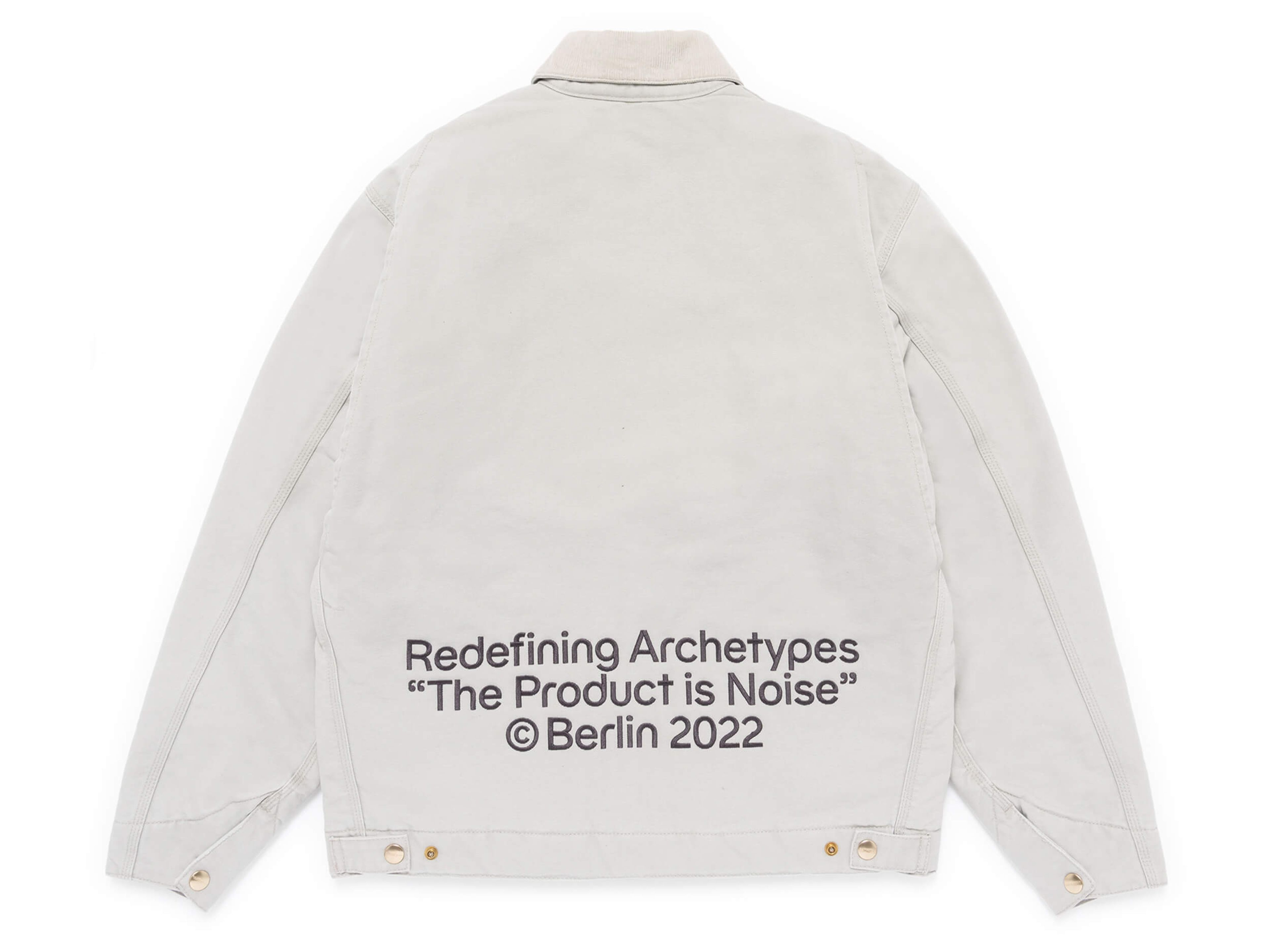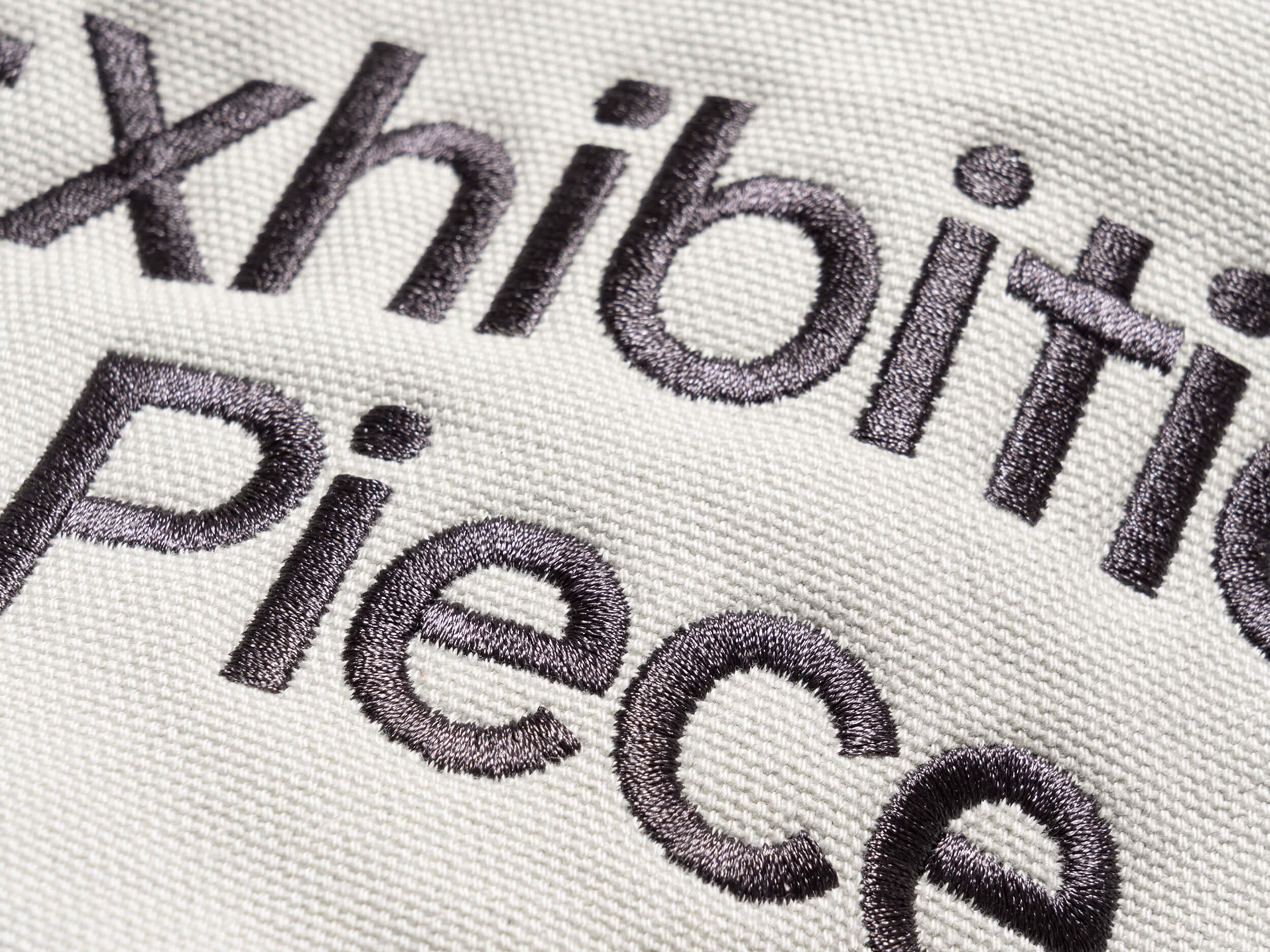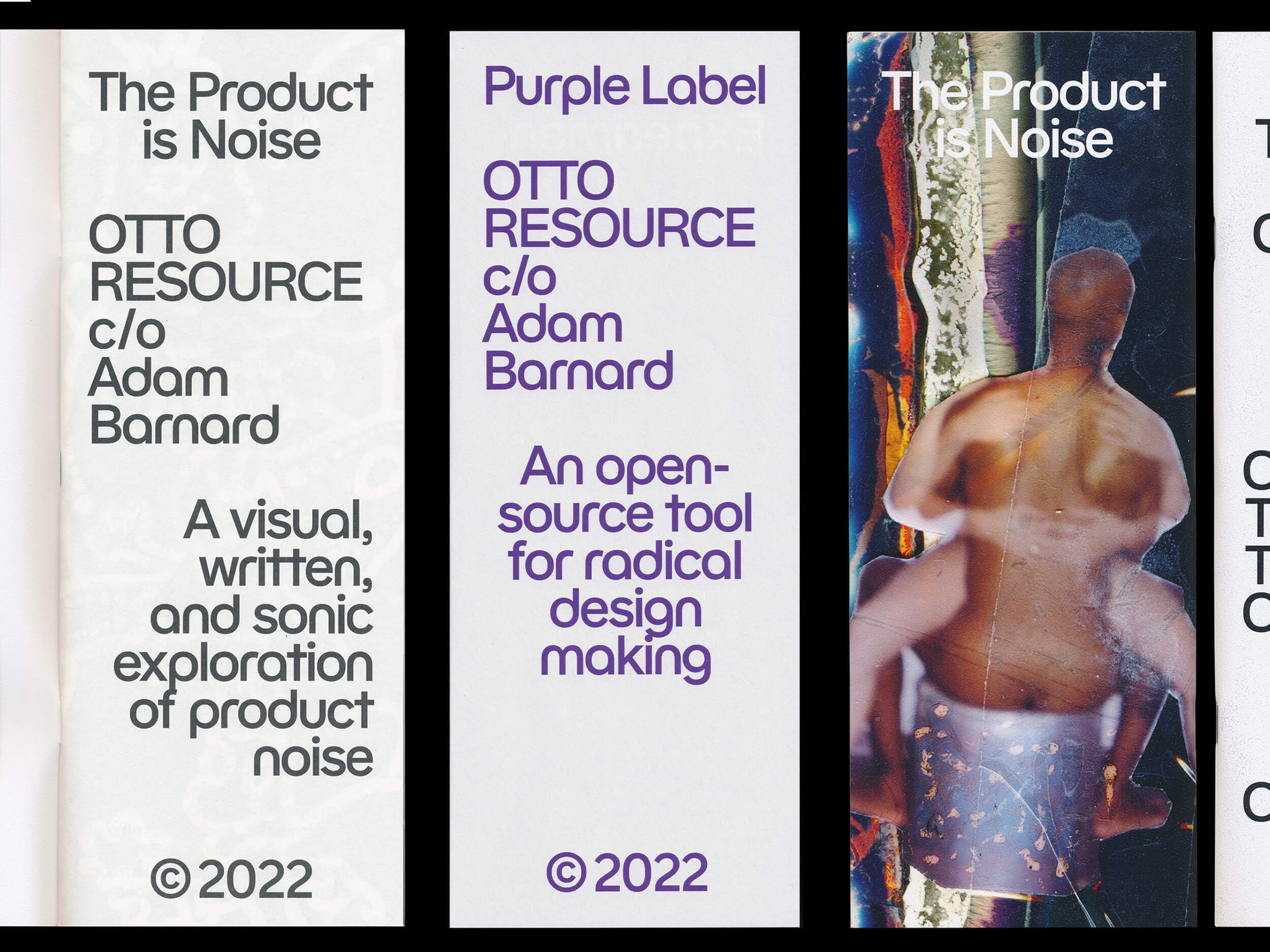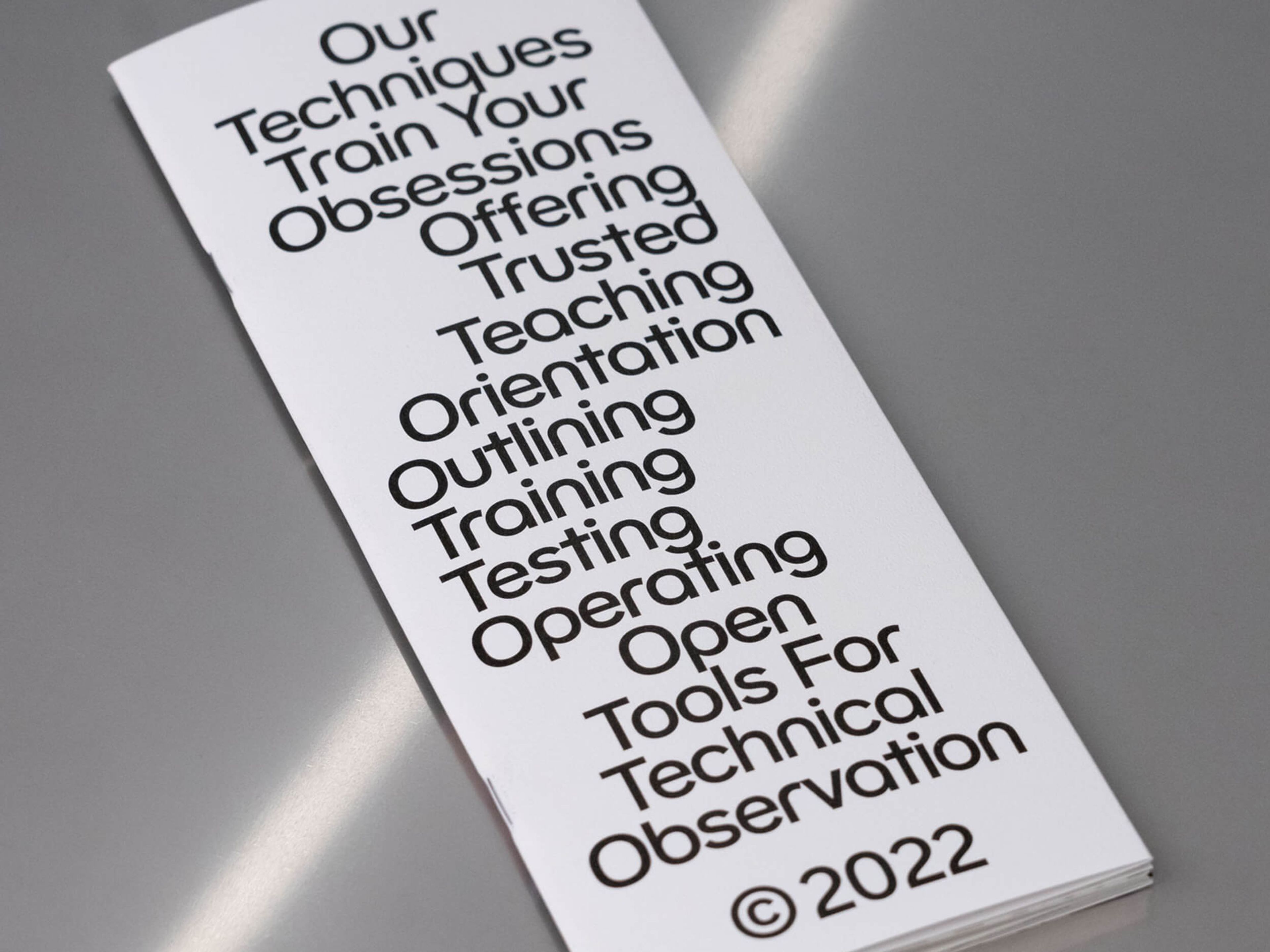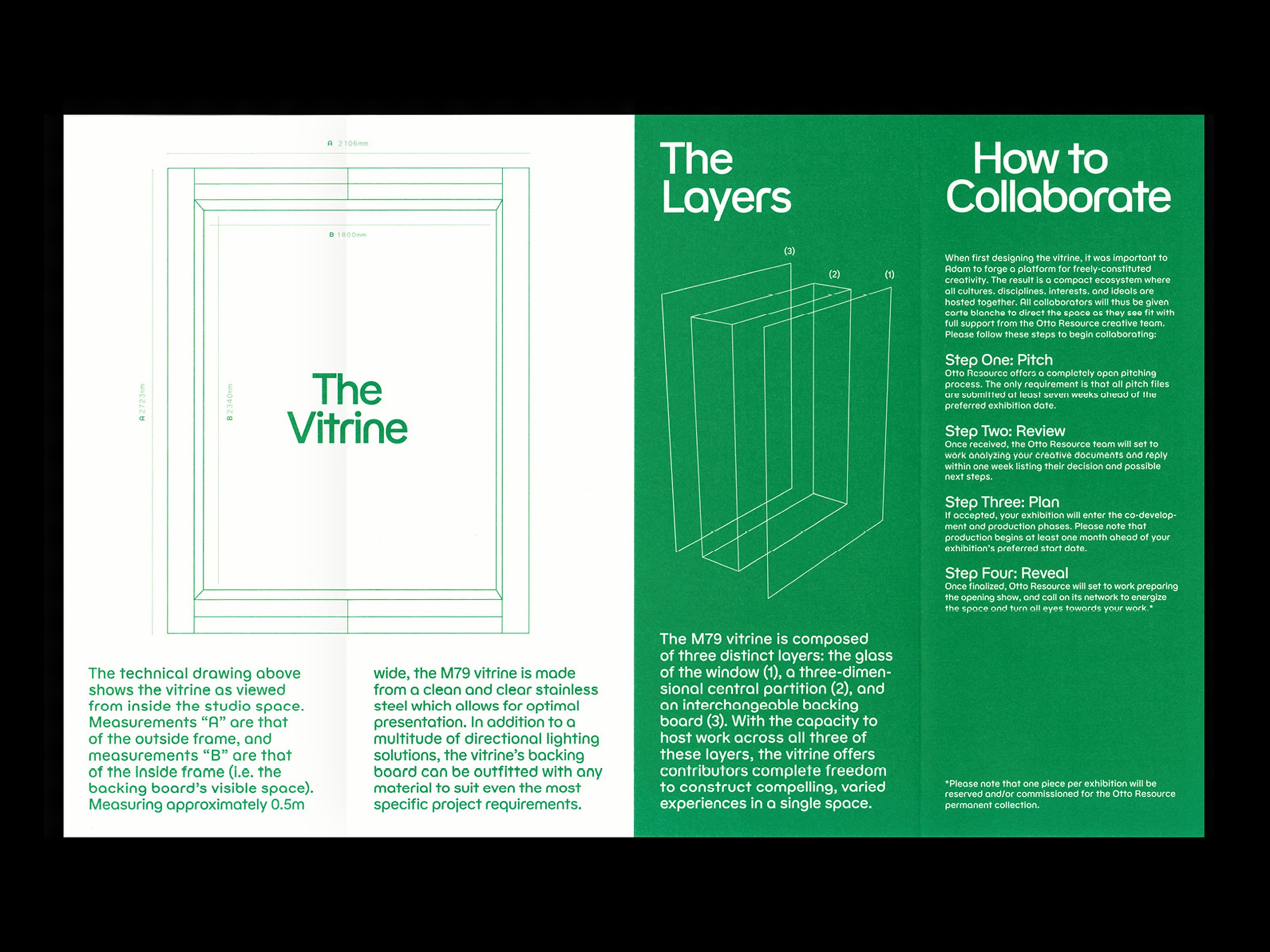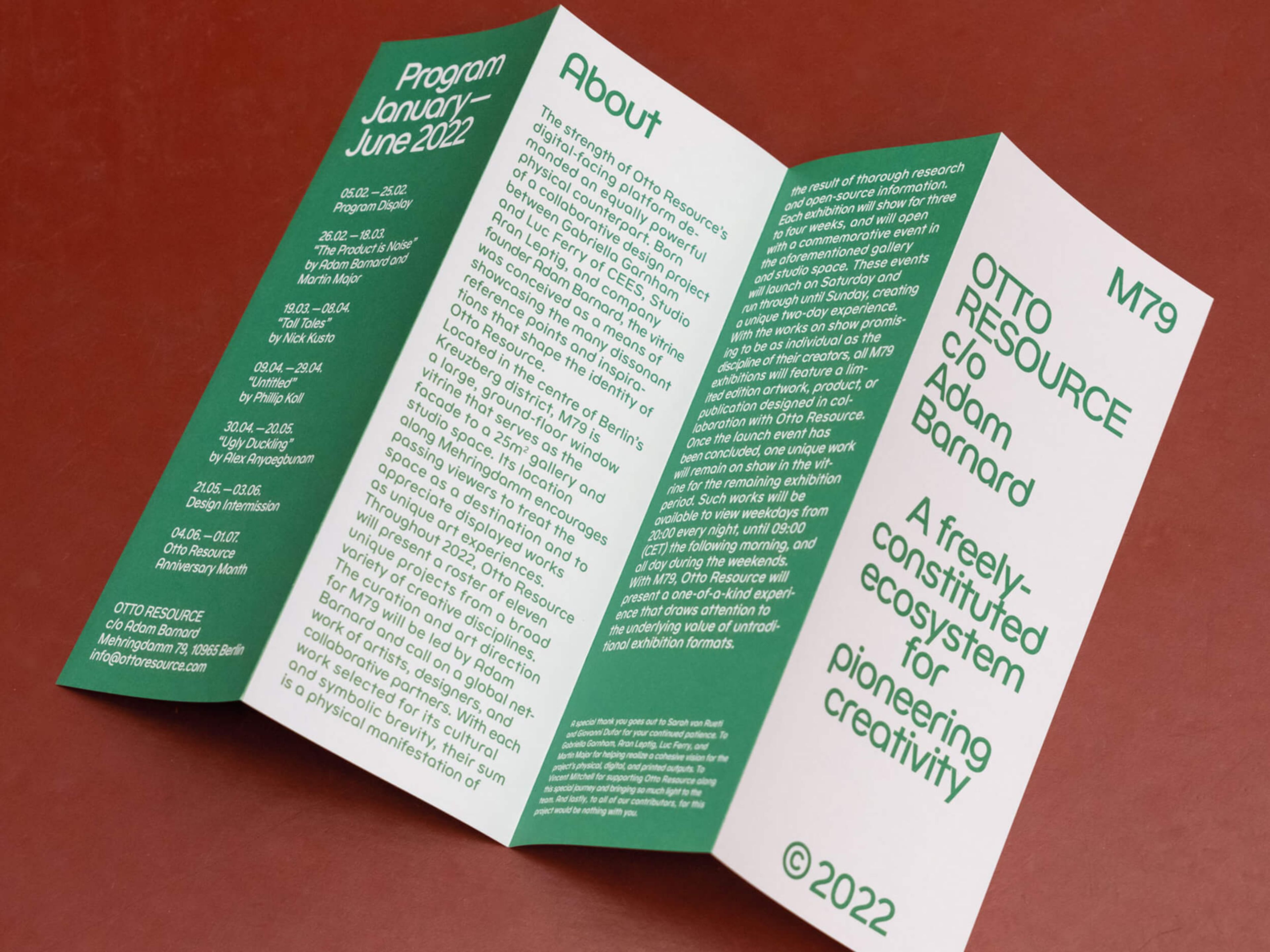
Description
HAL Matex is inspired by schoolbook/textbook grotesques as well as geometric bauhaus aesthetics, apparent in references such as Herbert Bayer’s mid-1920’s, lowercase Universal. The typeface exists in six weights featuring numerous spurless characters with corresponding alternates accessible via opentype stylistic sets.
Credits
Design: HAL Typefaces
Production: HAL Typefaces
Volume: 6 styles
Release Year: 2019
Spacing/Kerning: HAL Typefaces